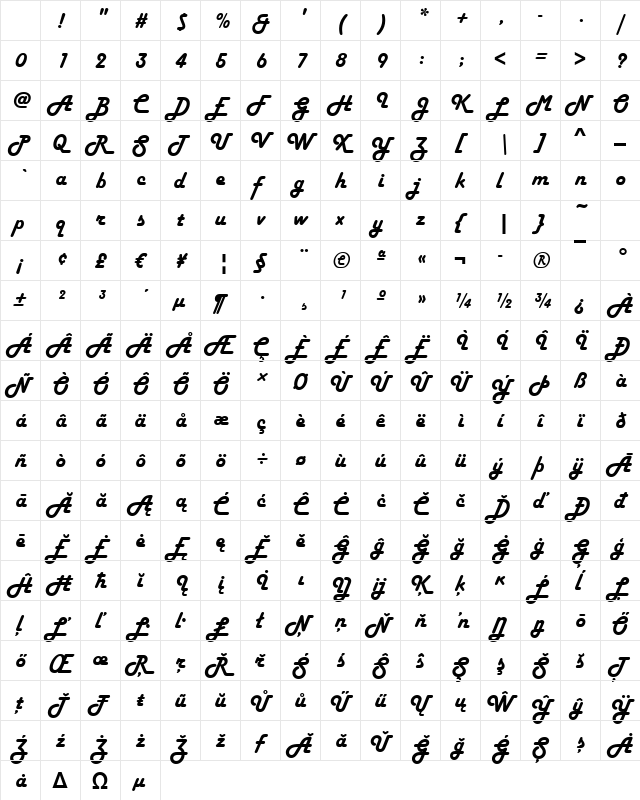
Complete HelenaSoft Italic glyph index. Displaying only characters natively supported by HelenaSoft Italic font.
HelenaSoft is a composed and adaptable typeface that performs quietly and consistently across a wide range of design contexts. The slanted form adds forward momentum and visual energy.